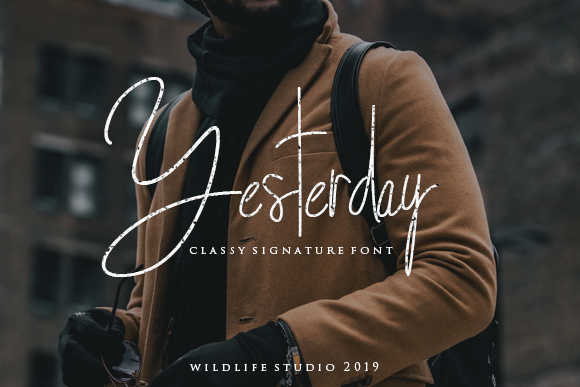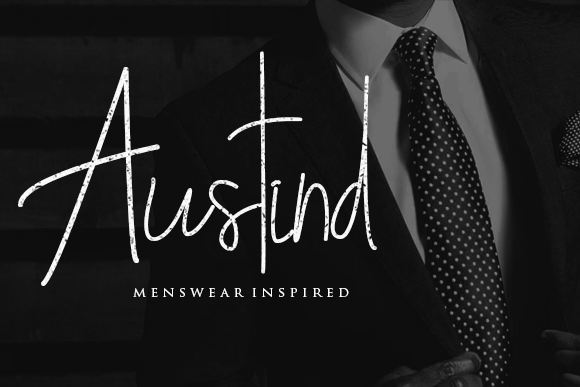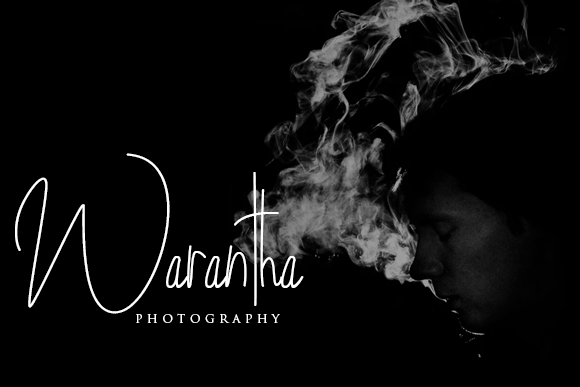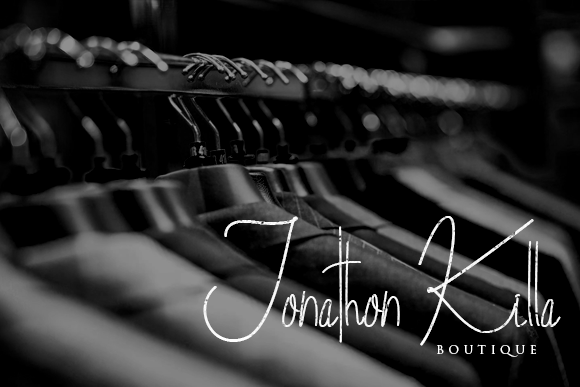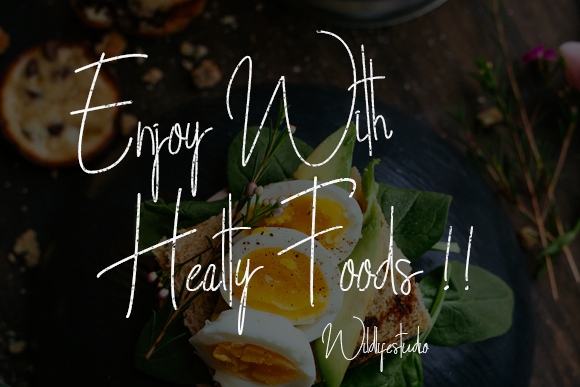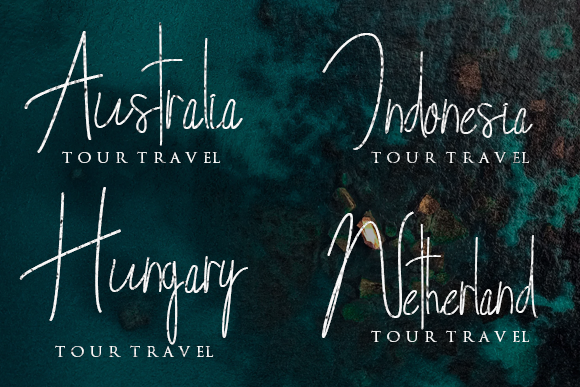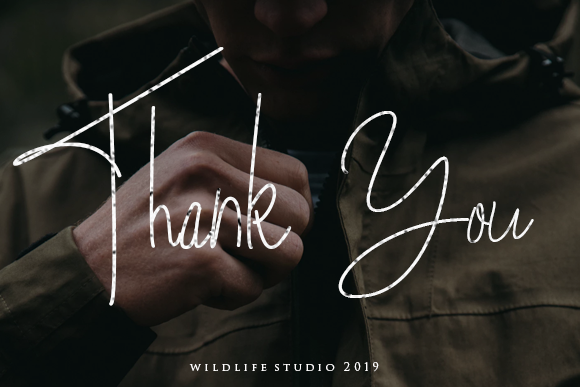
Yesterday Font
About Yesterday Font
Yesterday is an elegant monoline script font that has a distinct minimal and sleek feel. It’s casual and clean, and works best as a headline or signature to your works.